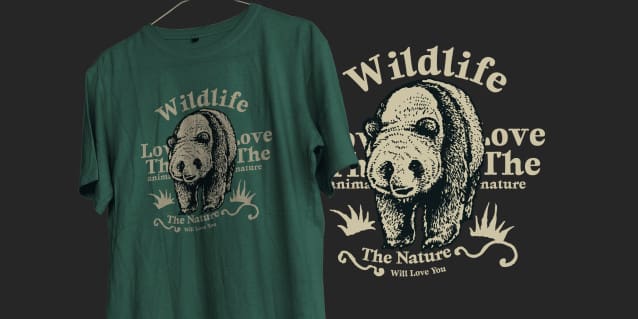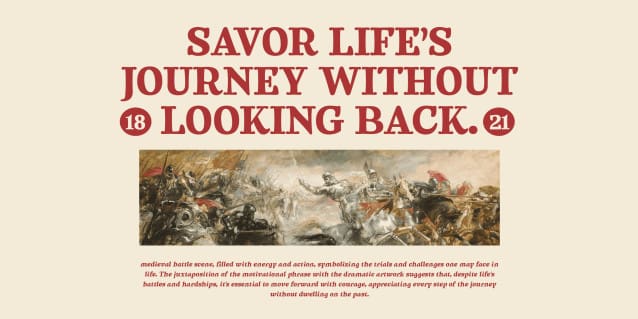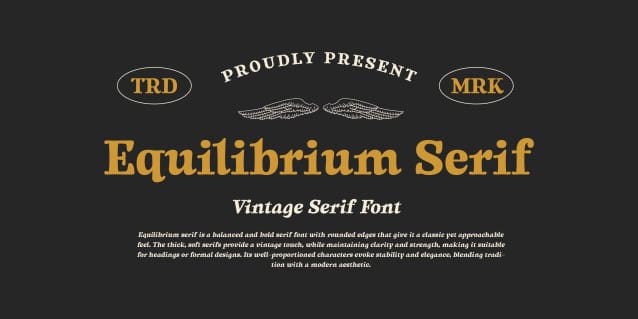
Equilibrium Serif Font
Equilibrium Serif font: neoclassical design evokes timelessness, while the luminosity of the smooth curves gives a warm, inviting feel.
EquilibriumSerif is versatile, lending itself to both formal and modern contexts, making it perfect for projects that require a refined charm.